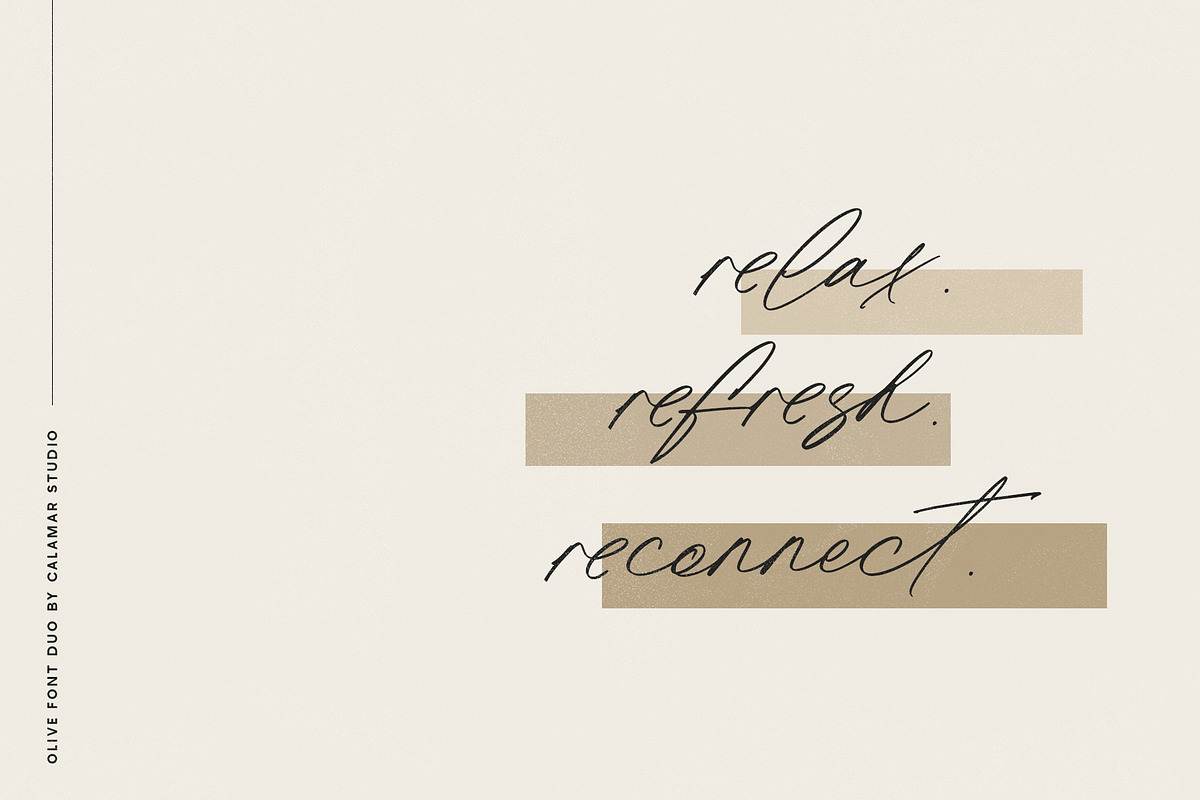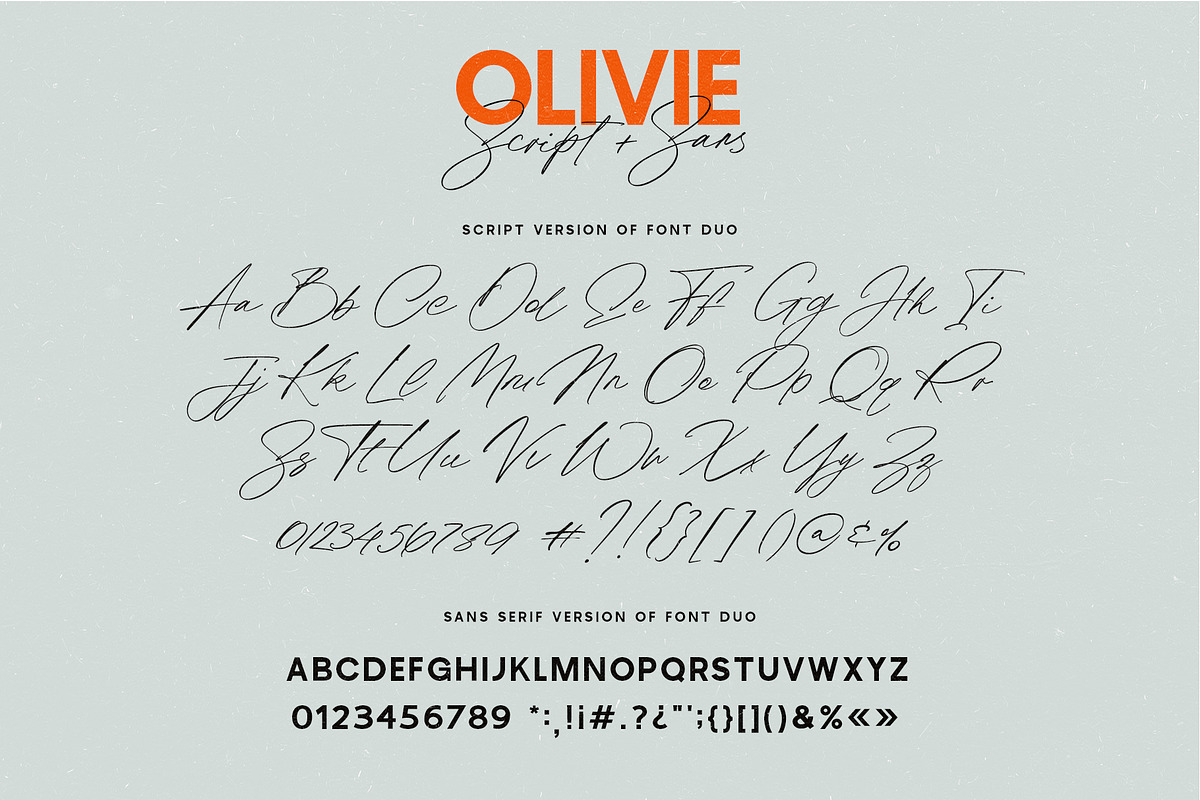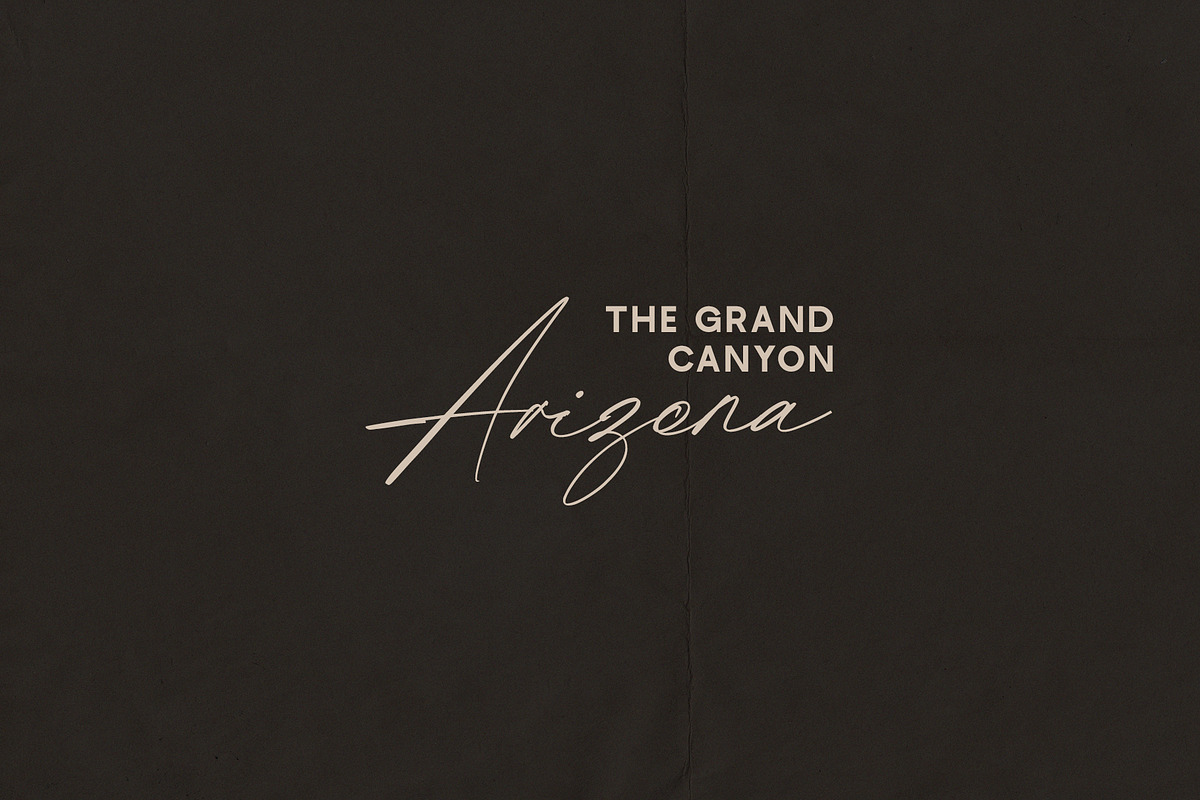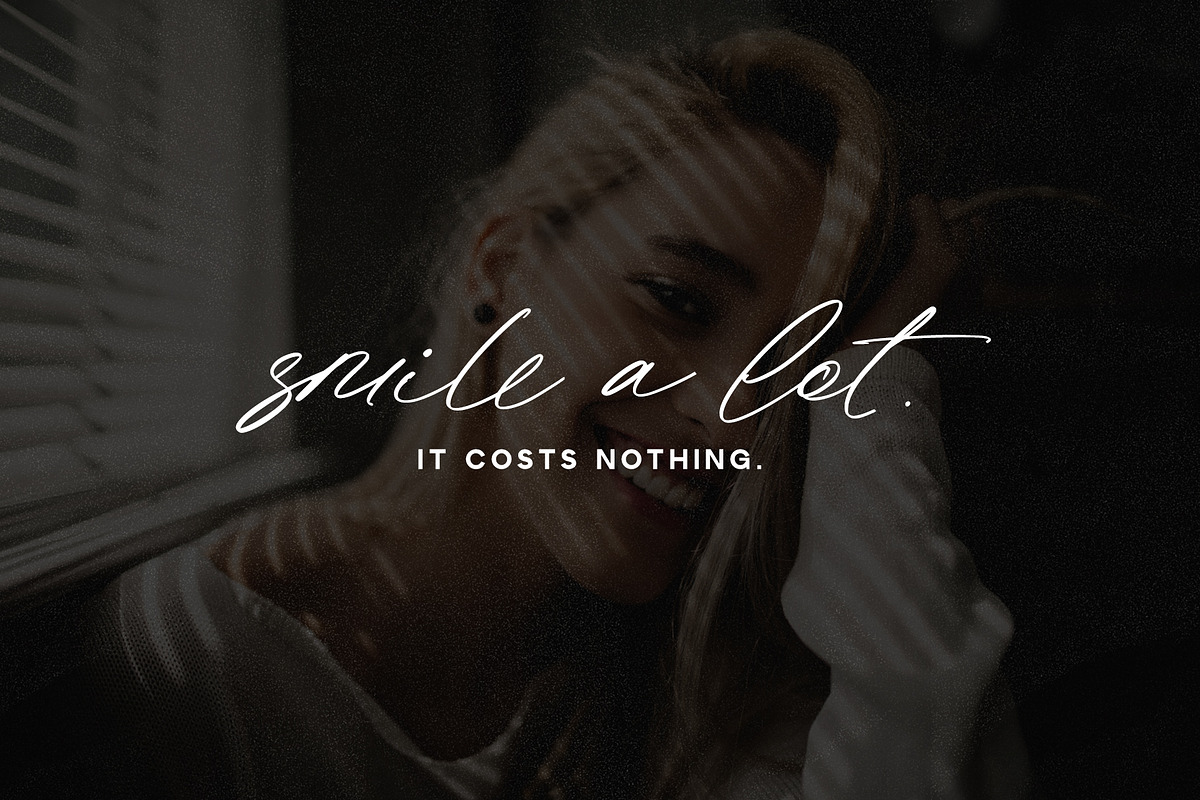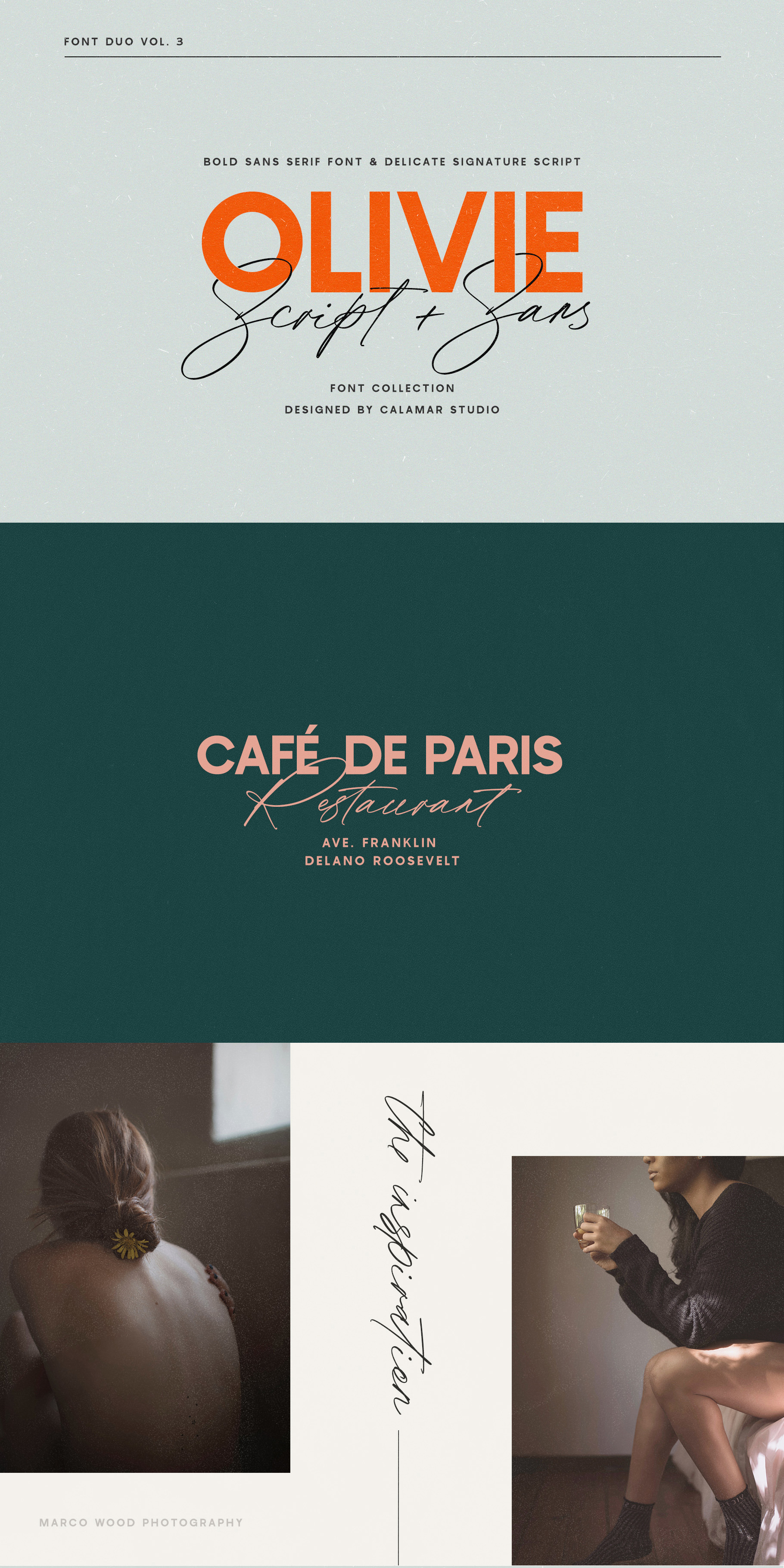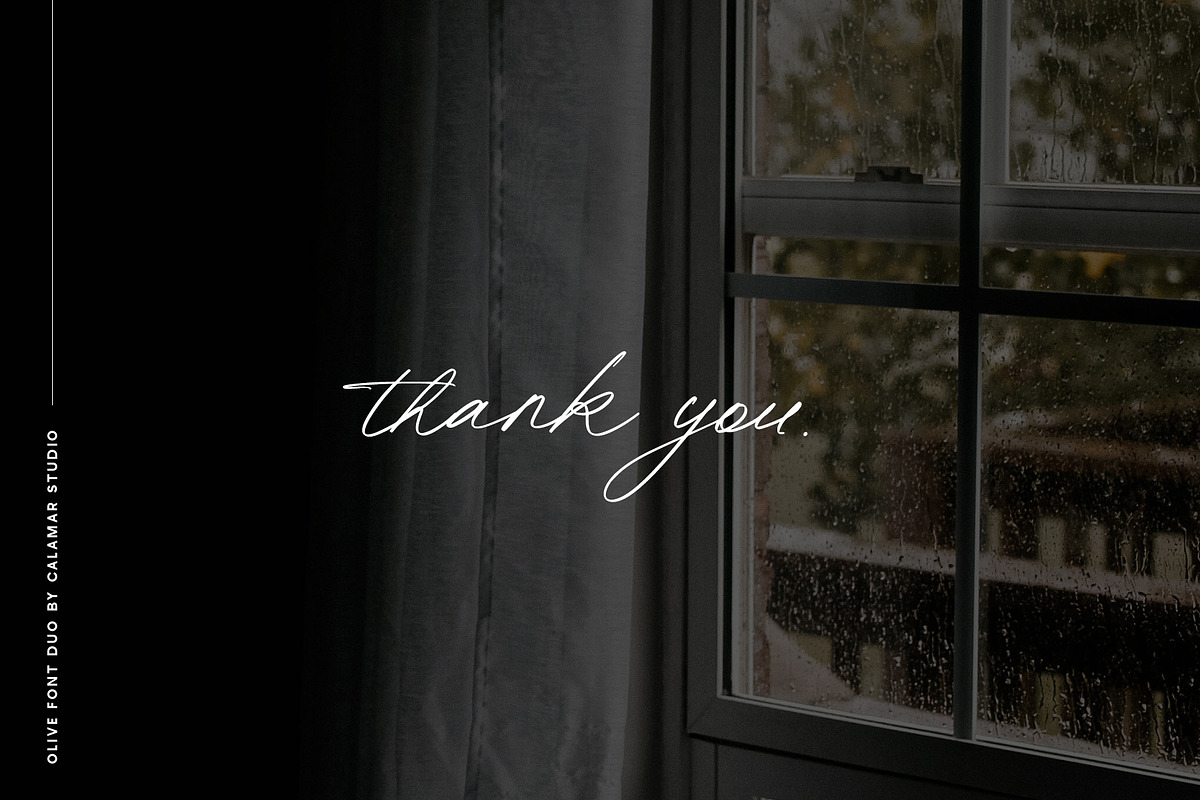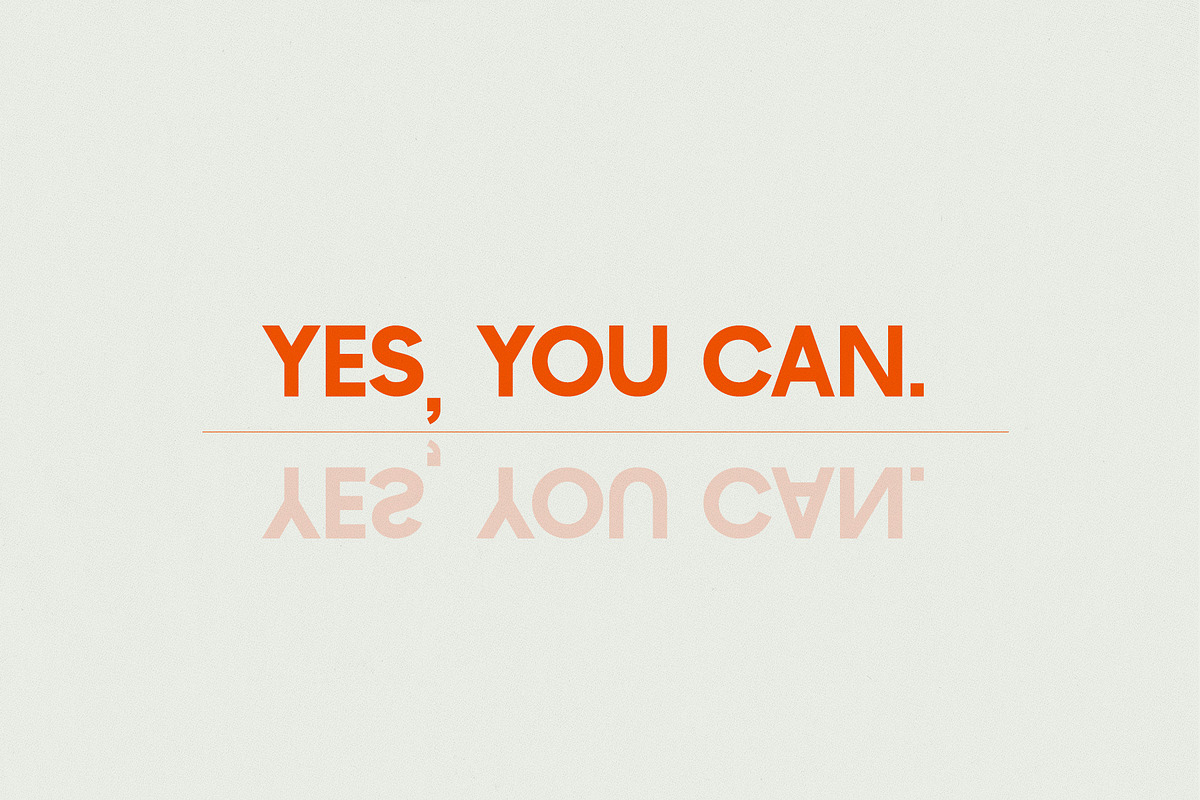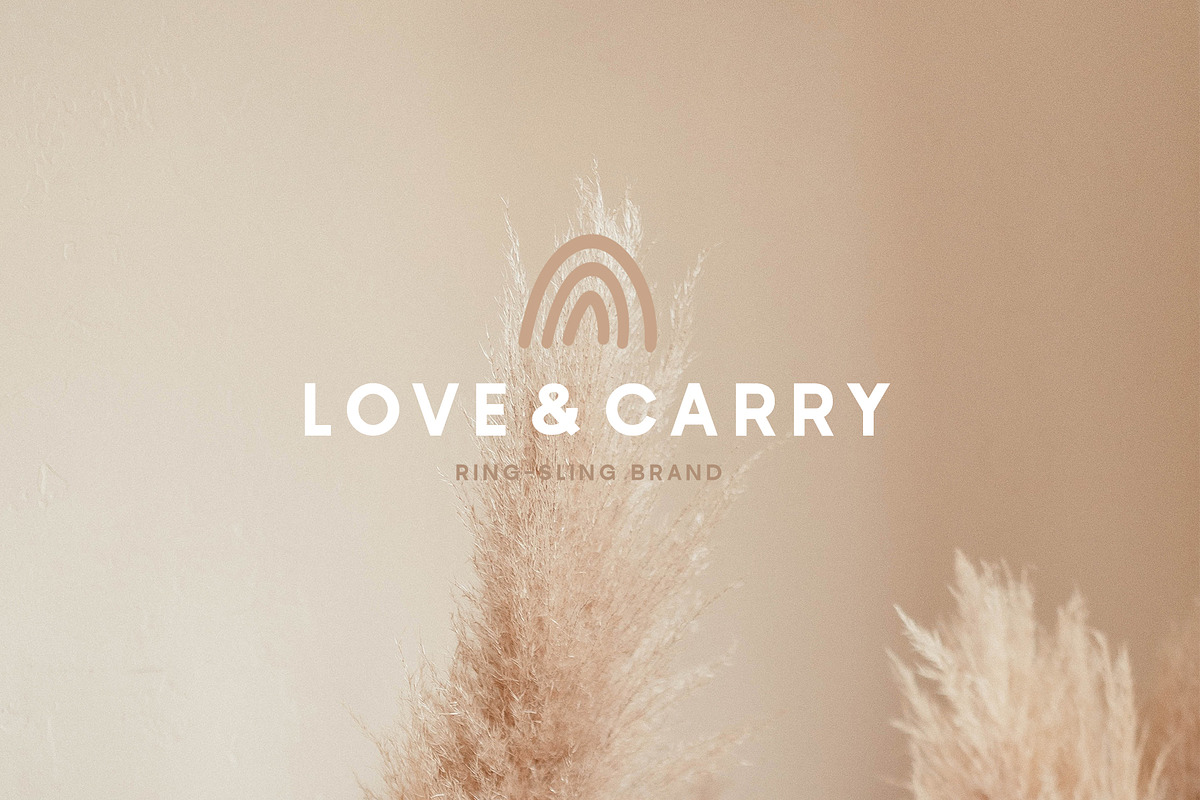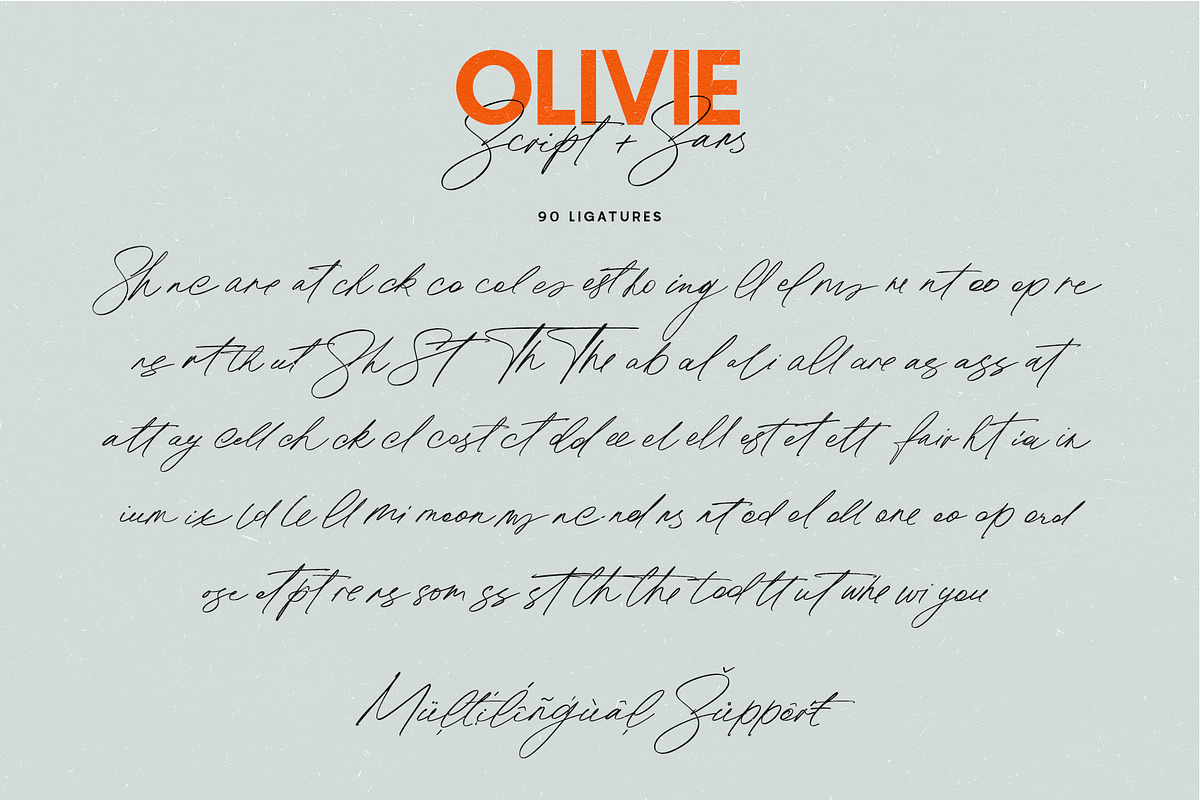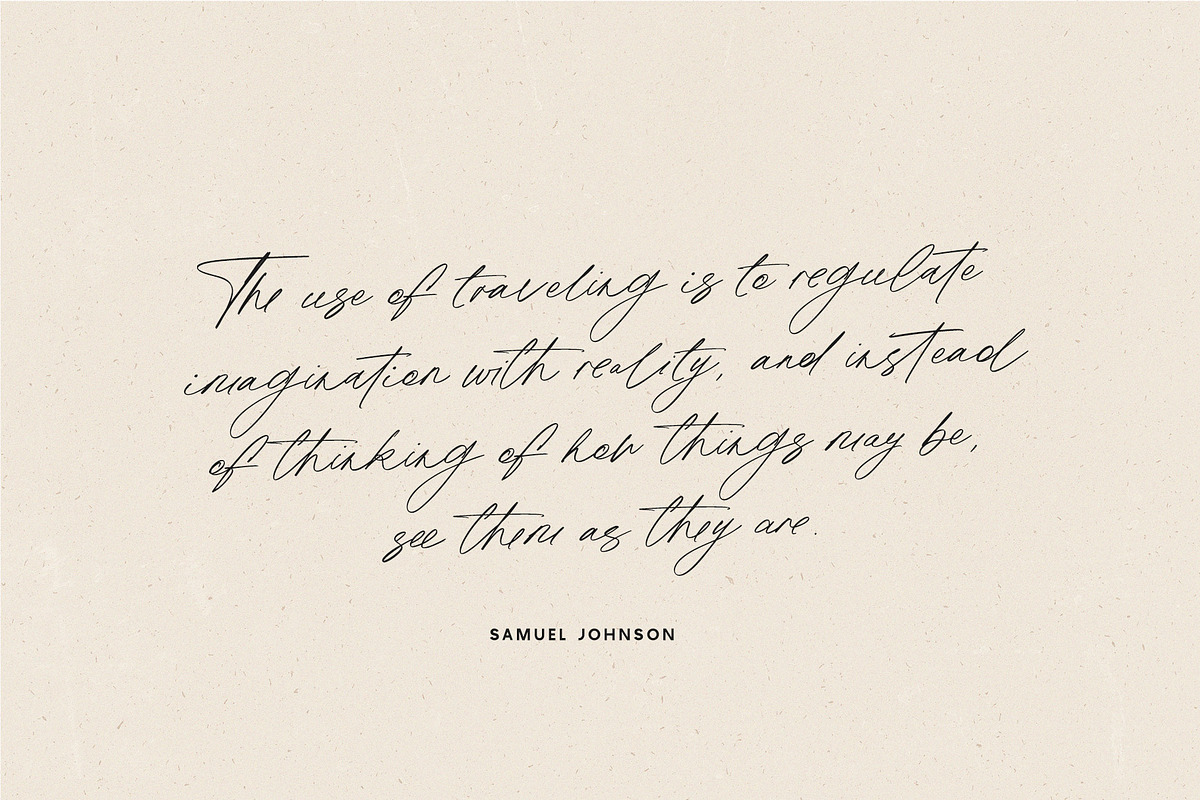
Olivie Font Duo / Script & Sans
Olivie Font Duo is the third font duo created by me and honestly I totally love each my duet. Today I present you the new font pair that already matched up and ready to be used together for many of your projects.
- Olivie Script features 90 ligatures giving you the options to look totally custom. Font also includes full set of uppercase and lowercase letters, multilingual symbols, numerals, punctuation.
- Olivie Sans Serif is a classy high contrast all-caps font that contains only uppercase characters, numerals and punctuation.
Olivie Font Duo has a smooth texture, so would be perfect for all types of printing techniques.